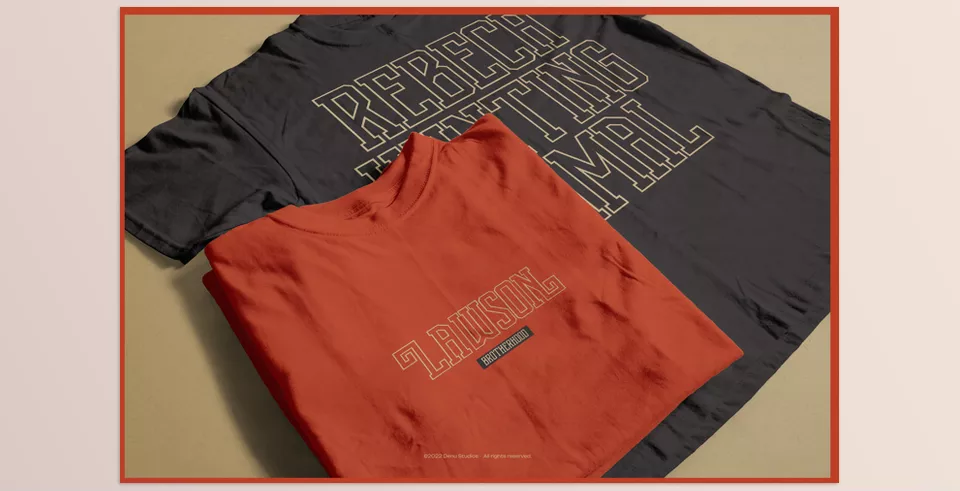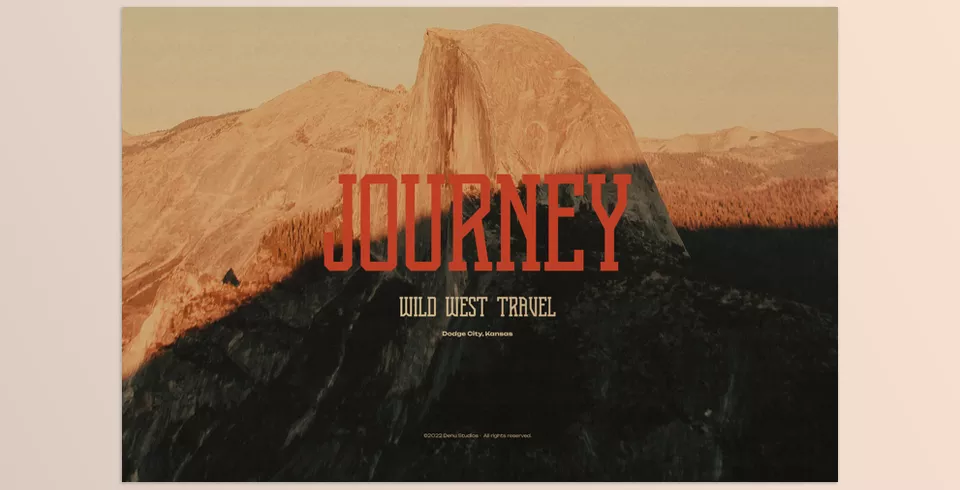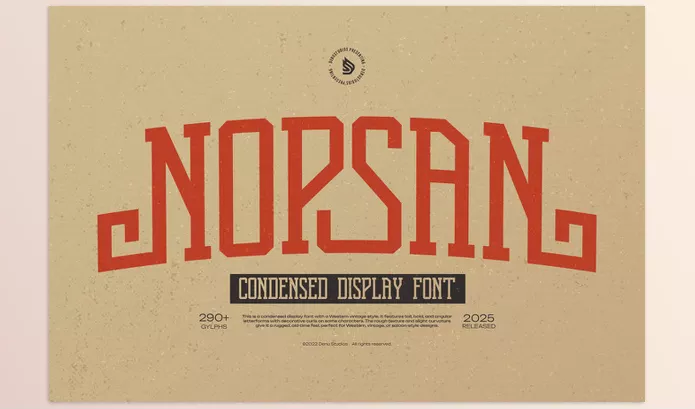
Expose space on your designs with the Nopsan Condensed Display Font created by Denustudios. This typeface supports creativity for distinct brands, from logos to product packaging and even special event materials. This font elevates the creative touch in all modern spaces.
• Design features: Gained through character-building labelling, including modules, alternates and standard glyphs forming creative constituents ‘math’ (theory).
Image 1: Add a touch of elegance to your projects with this sleek typeface.
Image 2: Perfect for making a bold statement with any design.